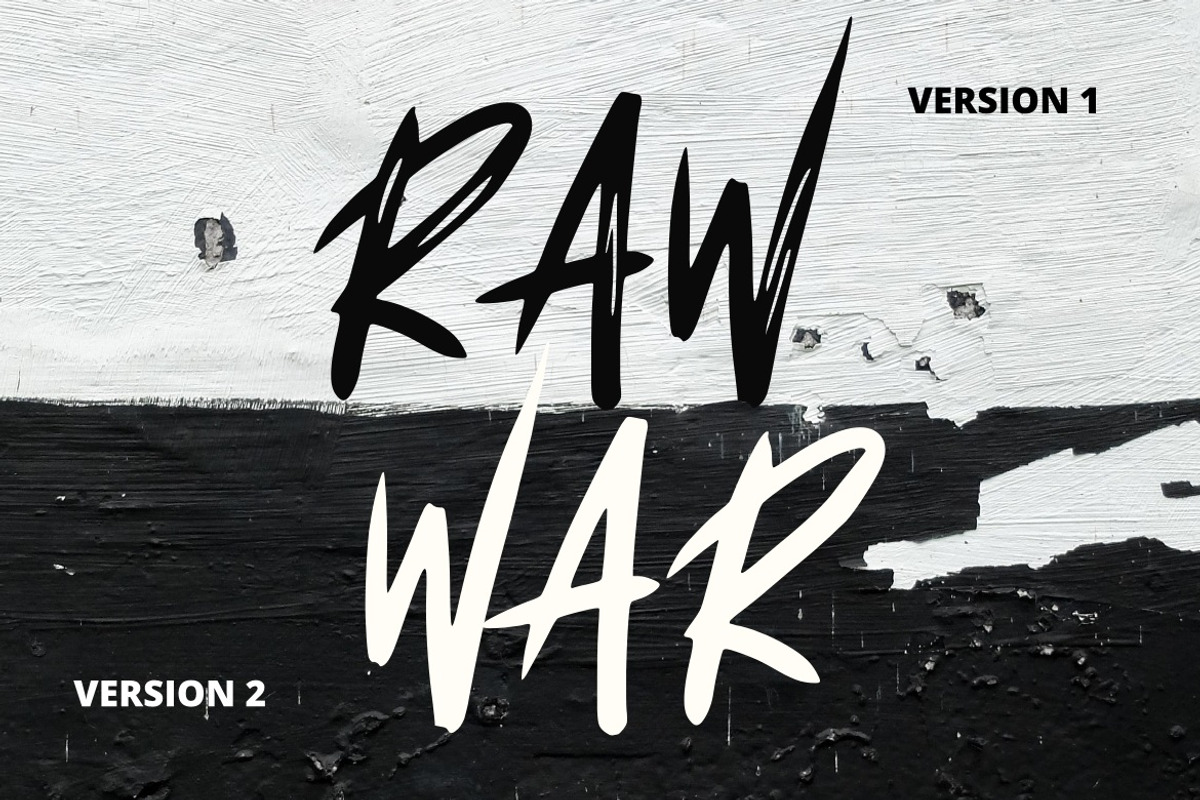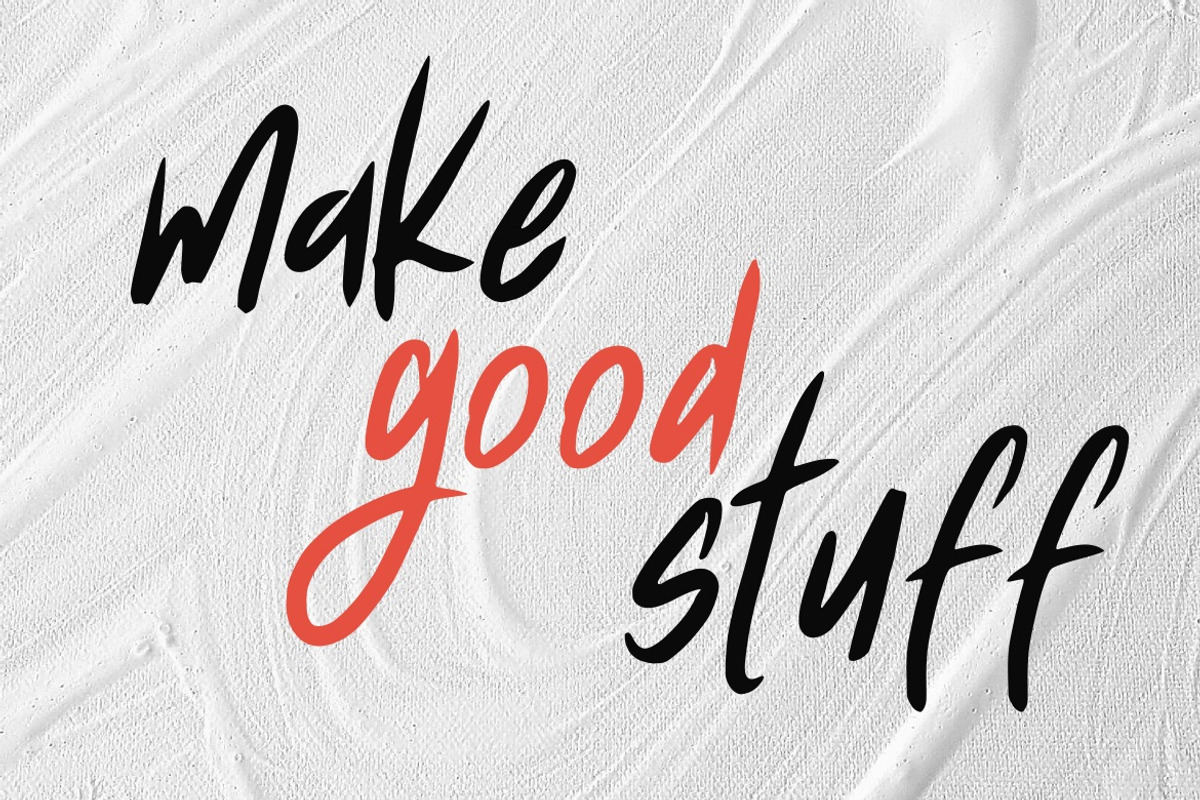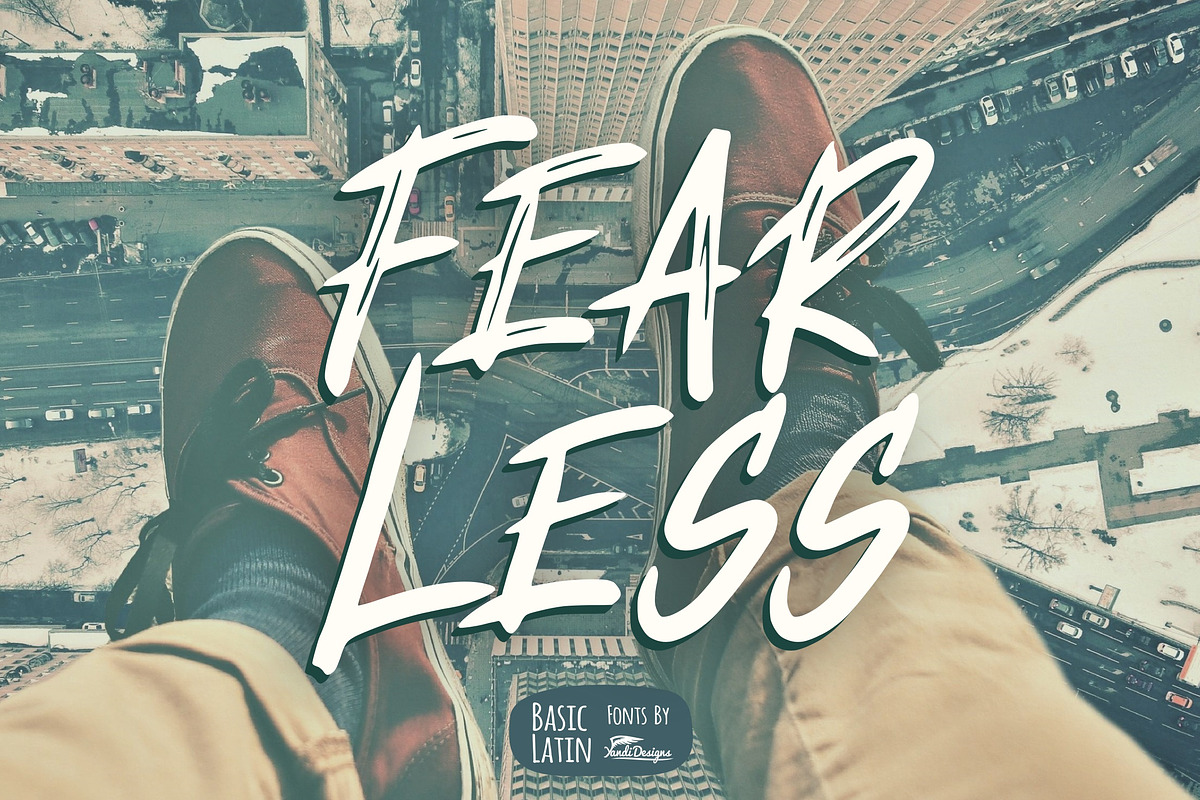
Fear Less Font
Simple hard brush font , suitable for many project , quotes, logo , doodle, heading , title etc.
Basic Latin (Standard English character , number, punctuation)